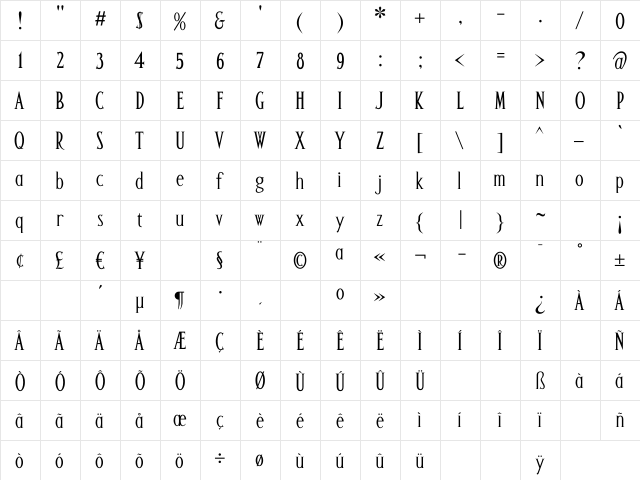
AltarRegular Regular
Design Context for AltarRegular Typeface
AltarRegular offers clean, dependable letterforms without strong stylistic allegiance, making it a practical choice for designers who need flexibility.